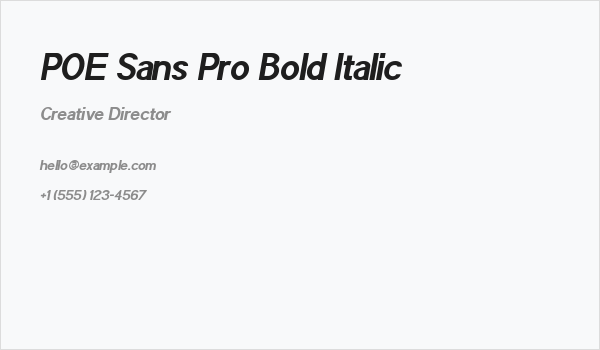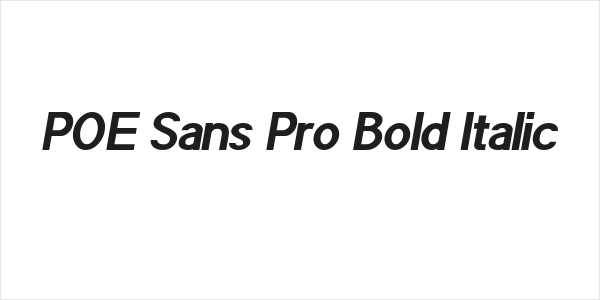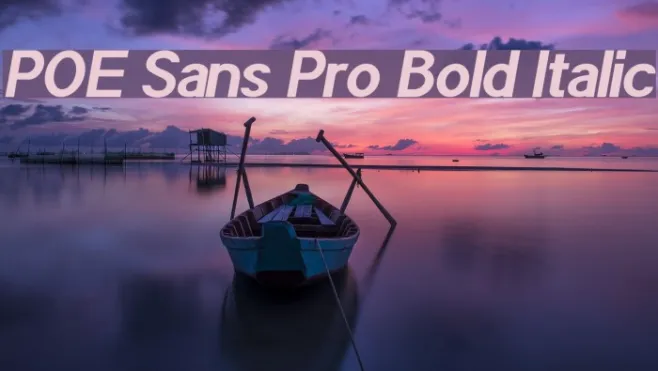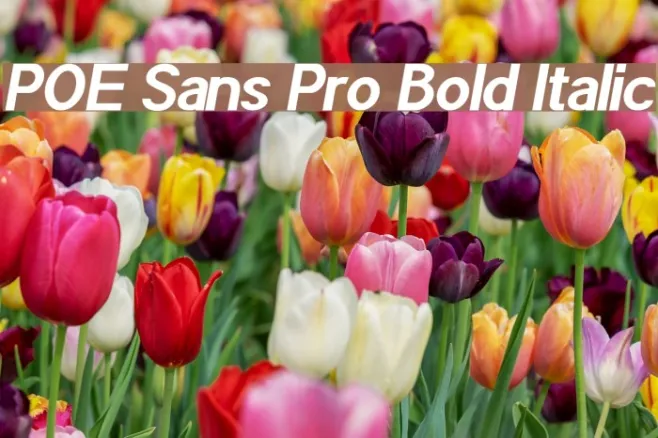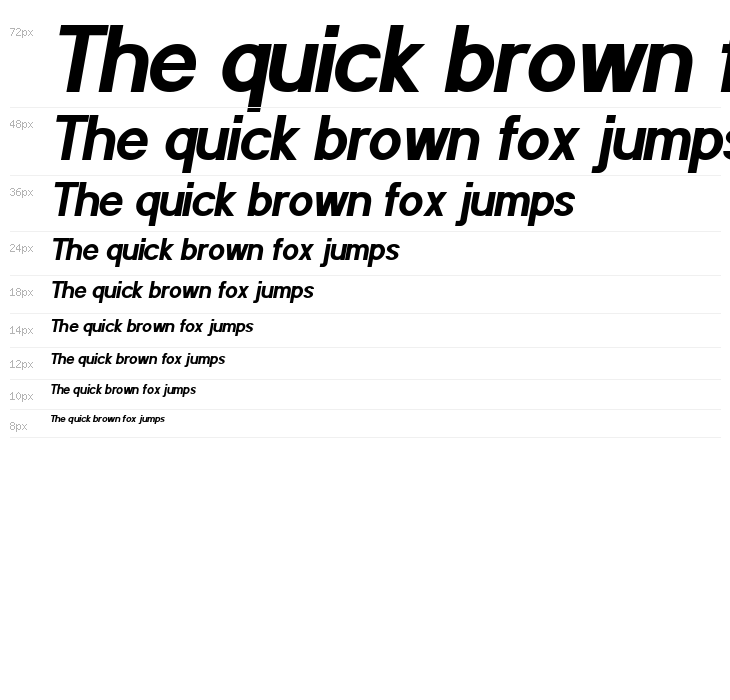
POE Sans Pro Bold Italic Font
POE Sans Pro Bold Italic Description
This font exhibits a bold and italicized style, characterized by its strong and assertive appearance. The letters are slightly slanted, giving a dynamic and modern feel. The strokes are thick and uniform, contributing to its boldness, while the italic angle adds a sense of movement. The font maintains a clean and professional look, making it suitable for various applications. The characters are well-spaced, ensuring readability even at smaller sizes. The numbers and special characters are consistent with the overall style, providing a cohesive look across all glyphs.
| Proposed Projects | Ideal for branding, advertising, headlines, and digital media where a strong and modern impression is desired. |